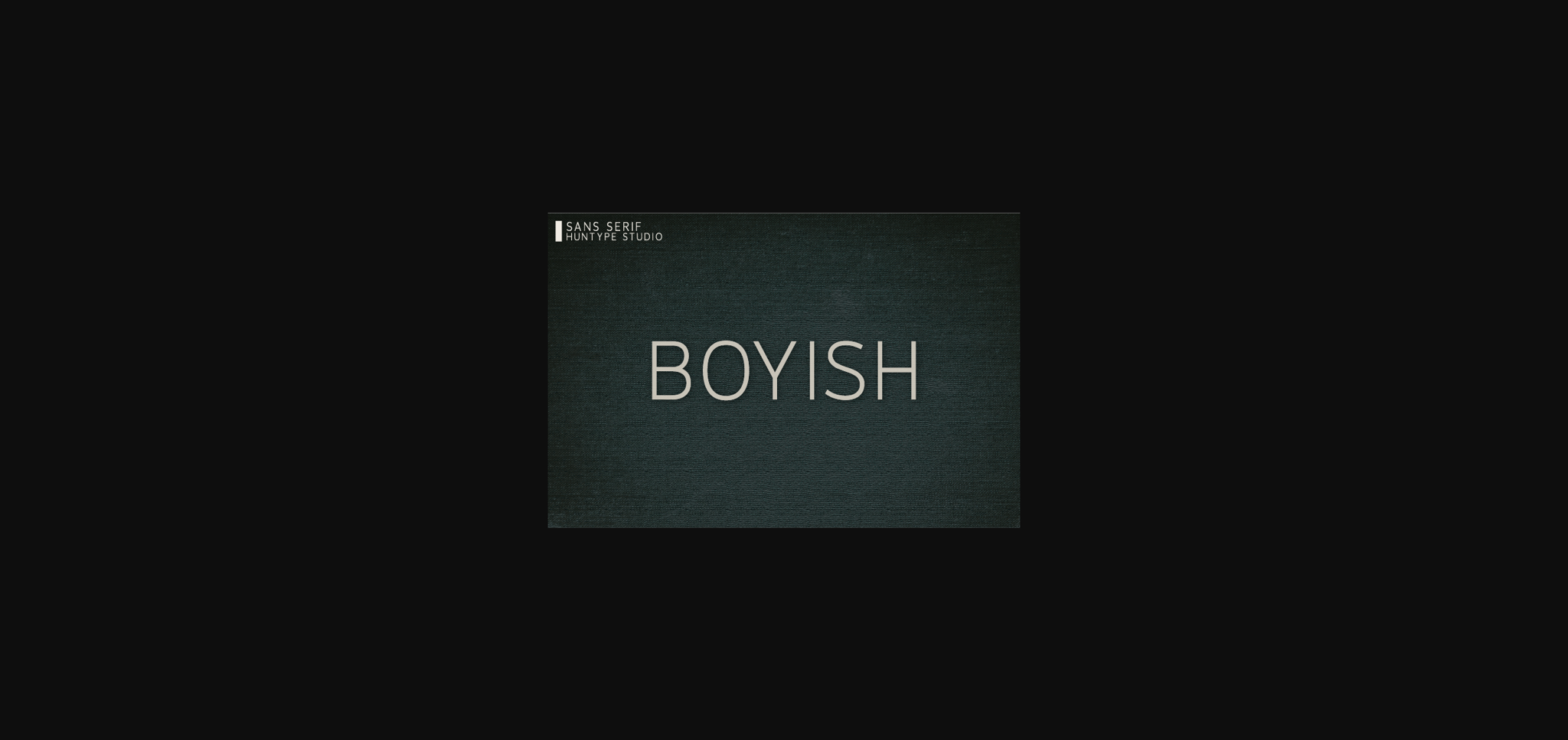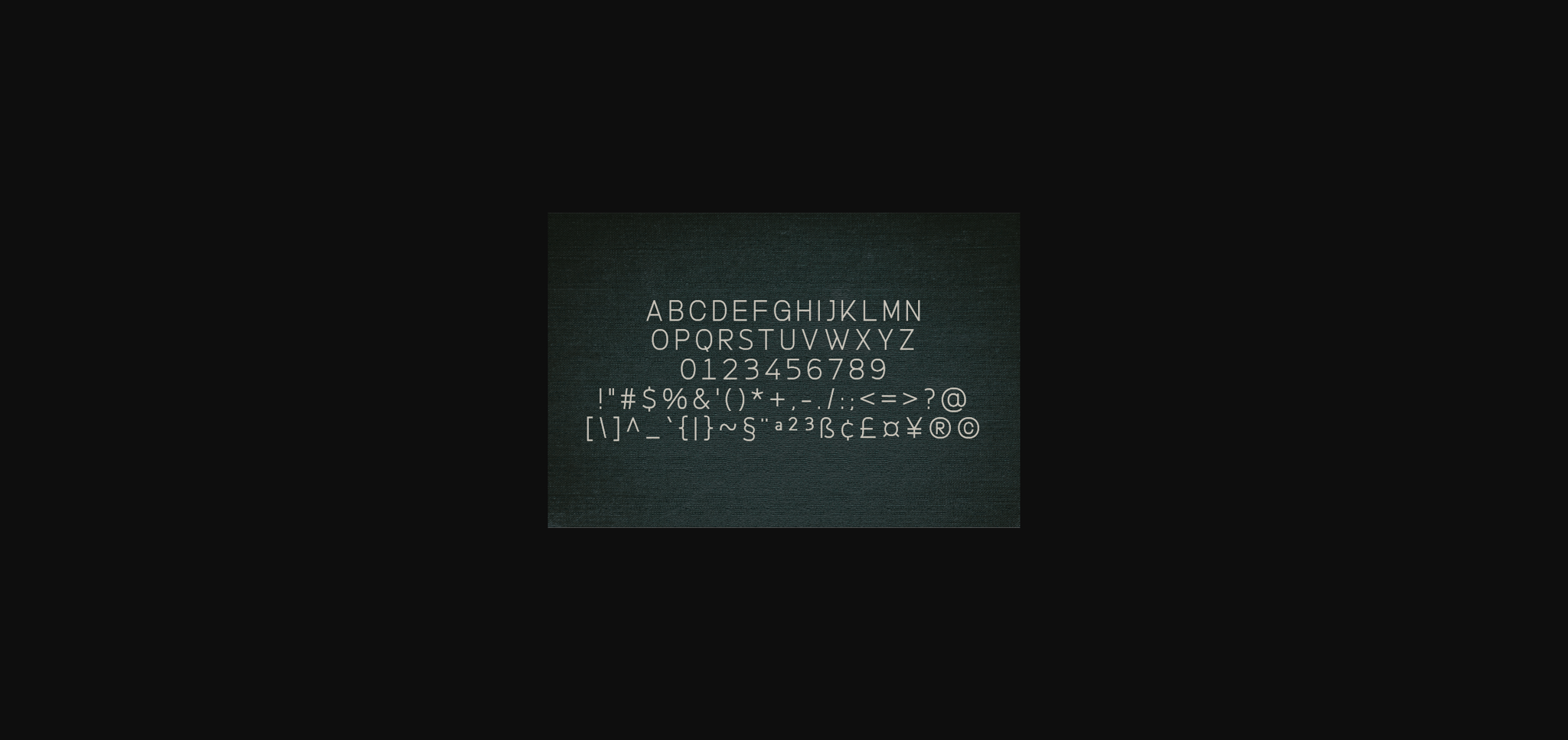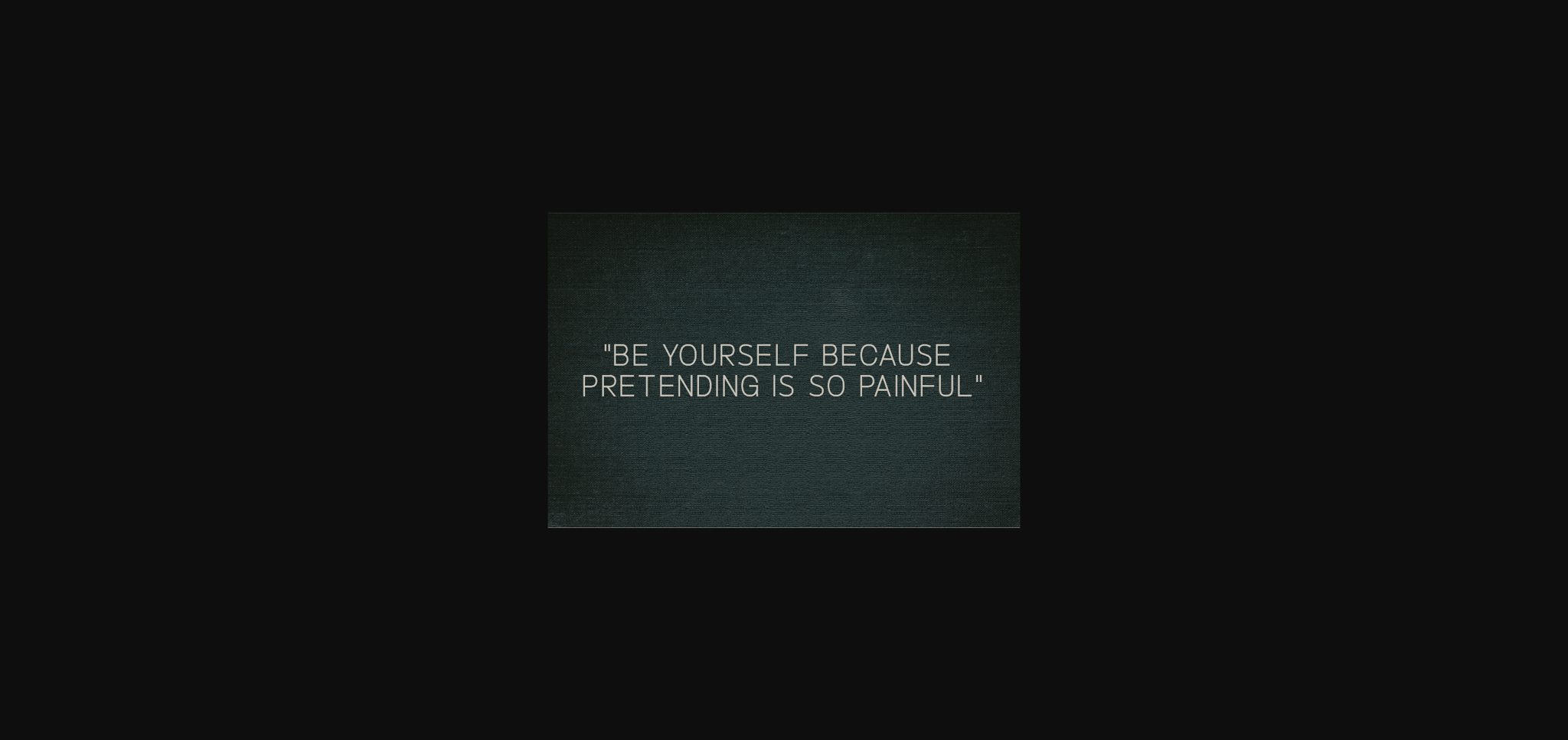
HomeSans Serif FontsBoyish Font Sans Serif Fonts Boyish Font FacebookXPinterestWhatsApp 1 of 5 ... Boyish Font Poster 2... Boyish Font Poster 3... Boyish Font Poster 4... Boyish Font Poster 5... About Boyish Font Boyish is an all-caps sans serif font that is so versatile and looks great in just about any context. With smooth and clean lines and just a touch of contrast, this font works beautifully for logos, branding, and web headings. DOWNLOAD NOW People also explored School Amazing Font Jellylory Font Gorgeous Girl Font Swift Font Cherishe Font Sweet Letters Font Write a Letter Font Valenia Font Cecilia Font 407 0 TagsBoyishBoyish Font Previous articleUniversal FontNext articleVegetables Font LEAVE A REPLY Cancel reply Comment: Please enter your comment! Name:* Please enter your name here Email:* You have entered an incorrect email address! Please enter your email address here Website: Save my name, email, and website in this browser for the next time I comment. Personal Use Free Handayani Personal Use Free Read more about this font Husky Stash Personal Use Free Read more about this font Evensong Hollow Personal Use Free Read more about this font Equestrain Personal Use Free Read more about this font BLOG How to Cut Any Font on Cricut: Convert a Font to SVG (Free) Turn any font into a clean SVG so it cuts crisp on Cricut - a quick 3-step workflow using a free font-to-SVG tool. Free vs Paid Fonts: Why Investing in Premium Fonts Is Worth It Using Fonts in Digital Marketing: Tips to Strengthen Your Brand Identity Top 10 Handwritten Fonts That Elevate Your Designs